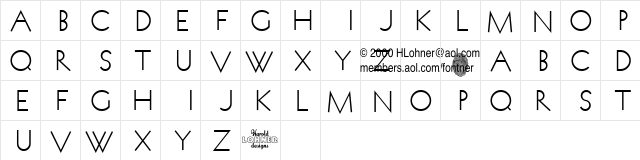
Koch Quadrat Fill Regular
Koch Quadrat Fill offers clean, dependable letterforms without strong stylistic allegiance, making it a practical choice for designers who need flexibility.